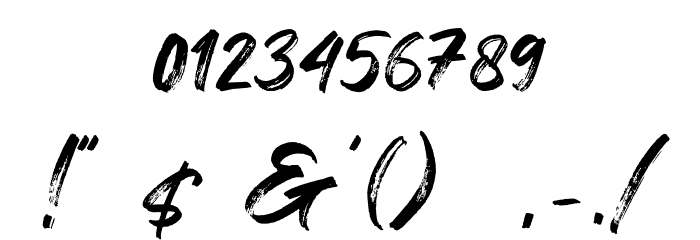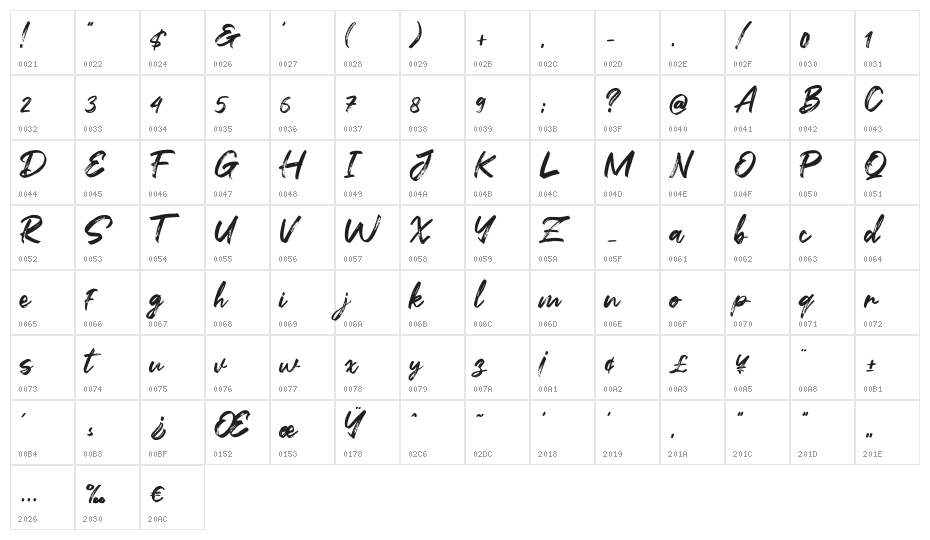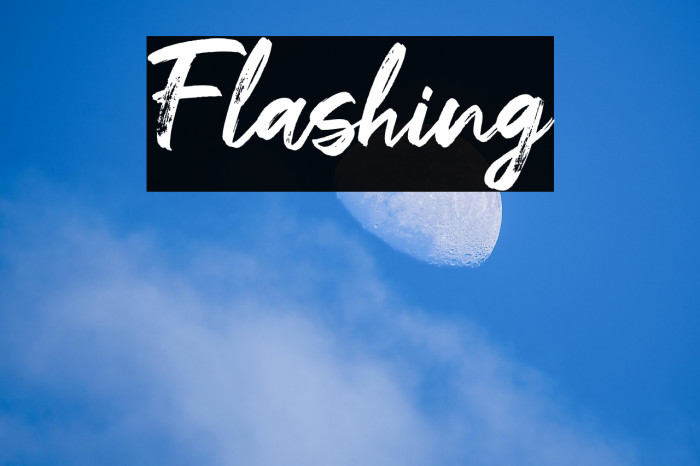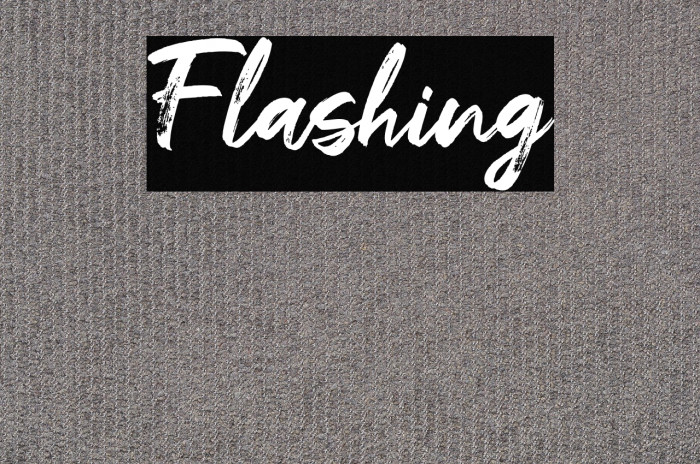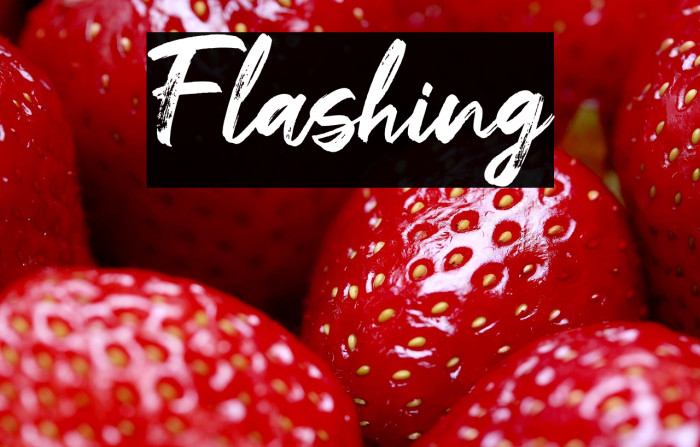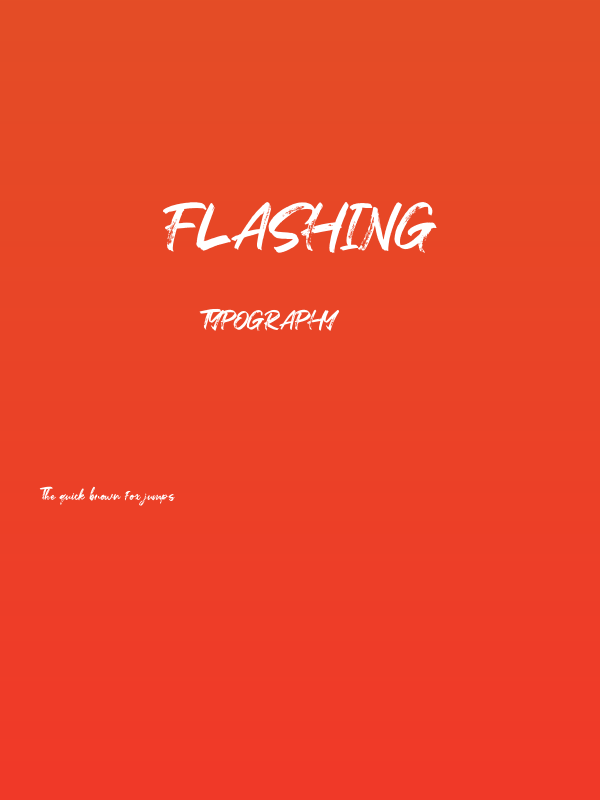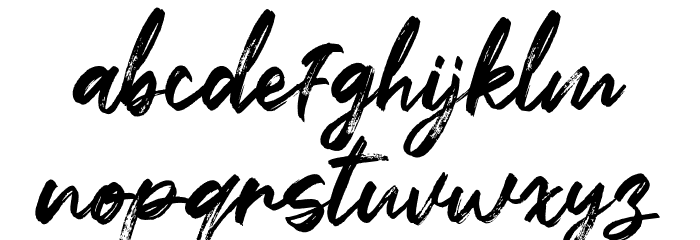
Flashing Font
Flashing Description
This font features a dynamic and energetic brush script style, characterized by its bold and expressive strokes. The letters have a hand-painted appearance, with varying thickness that adds a sense of movement and texture. The uppercase letters are slightly more angular, while the lowercase letters maintain a fluid and connected form. The numbers and special characters follow the same lively aesthetic, making the font suitable for creating eye-catching designs. Its rough edges and irregularities give it a raw, artistic feel, perfect for projects that require a personal touch.